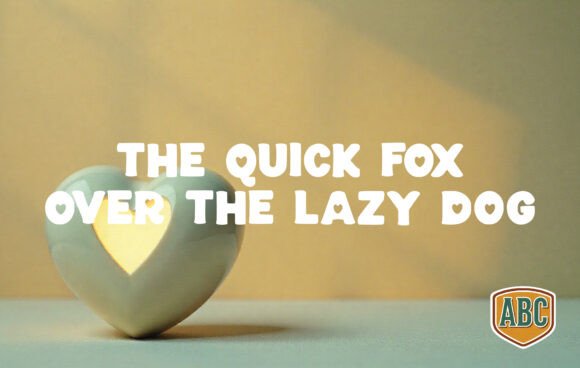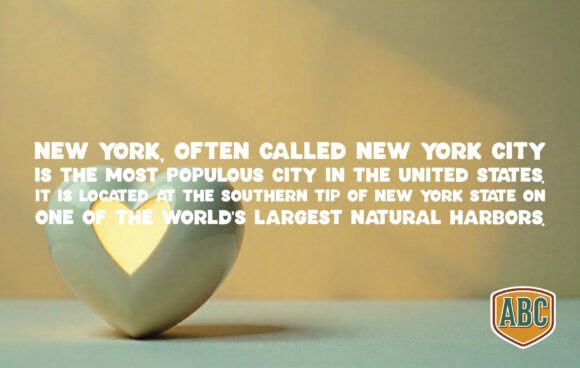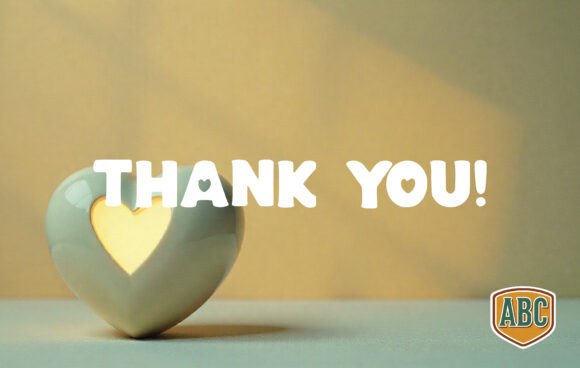
Spread the Love with Bright Heart Font: A Playful and Chunky Display Face
Have you ever been working on a design project, and suddenly, you’re stuck on finding the perfect font? I recall a recent experience where I was designing a Valentine’s Day card for a client, and I just couldn’t find a font that captured the right amount of playfulness and sweetness. That’s when I stumbled upon the Bright Heart font, and it literally put a heart into my message! 💕
An Honest Review of Bright Heart Font
What I Love About Bright Heart Font ✨
- ✅ The playful and chunky display face is perfect for grabbing attention
- ✅ Heart-shaped cutouts in the “dots” and counters add a delightful surprise
- ✅ The bold, heavy nature of the font ensures your message is seen
- ✅ It’s an excellent pairing for simple sans-serif fonts, allowing the “heart-filled” characters to pop as headlines
- ⚠️ The font might be too bold for small text sizes, so it’s best used for headlines or titles
- ⚠️ Some characters, like the lowercase letters, might not have the heart-shaped cutouts, which can be a bit inconsistent
The Backstory of Bright Heart Font
The Bright Heart font was designed with love and care by a talented type designer who wanted to create a font that would spread joy and positivity. Inspired by the idea of putting a heart into every message, the designer crafted a unique and playful font that would capture the essence of love and sweetness.
| Font Name | Bright Heart Font |
| Author | ABC Font |
| What is the best use for Bright Heart font? | Bright Heart font is perfect for Valentine’s Day designs, children’s products, romantic branding, and any project that requires a playful and sweet touch. |
| Is Bright Heart font available in different styles or weights? | Currently, Bright Heart font is available in a single style, but the designer may release additional weights or styles in the future. |